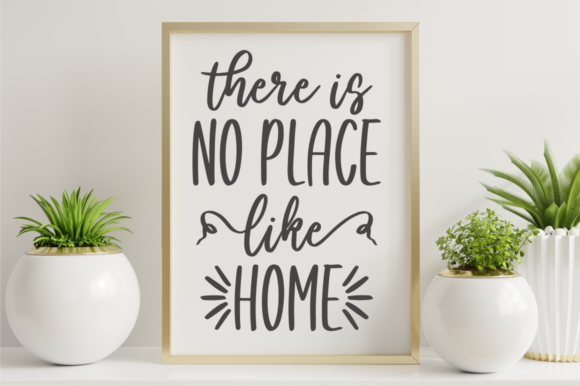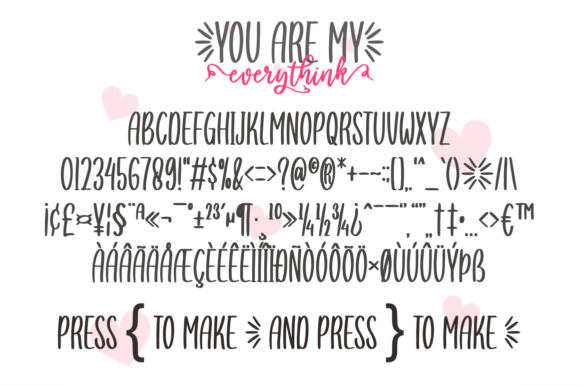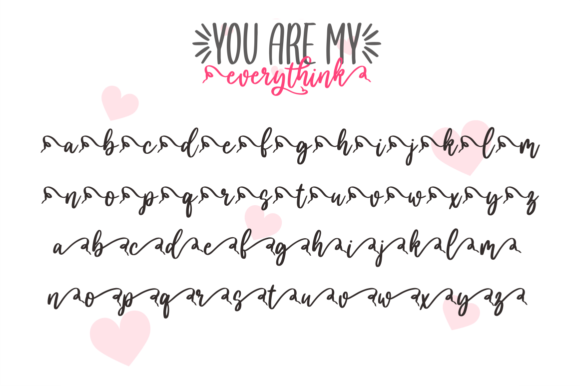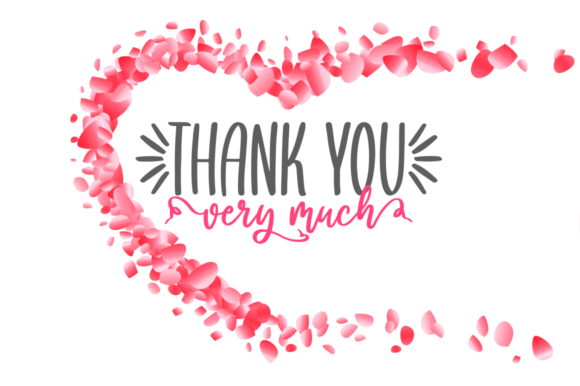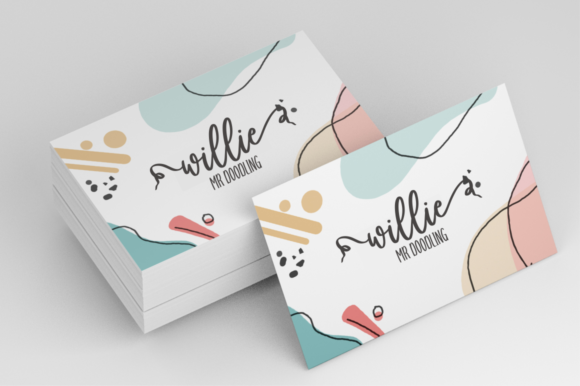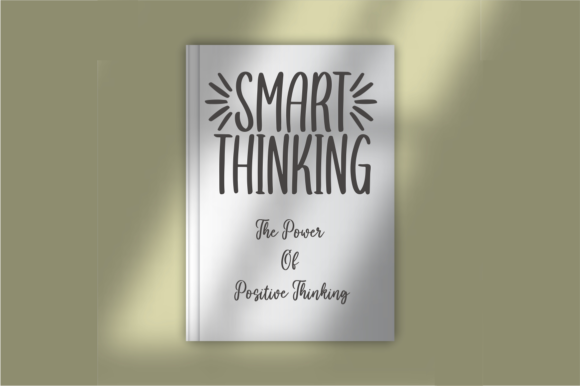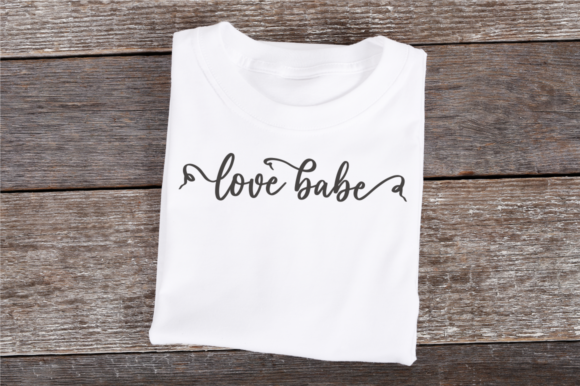
You Are My Everythink Font
About You Are My Everythink Font
You Are My Everythink is a fun and relaxed duo font (display and script). Incredibly versatile, this font fits a wide pool of designs, elevating them to the highest levels. Add this font to your favorite creative ideas and notice how it makes them come alive!